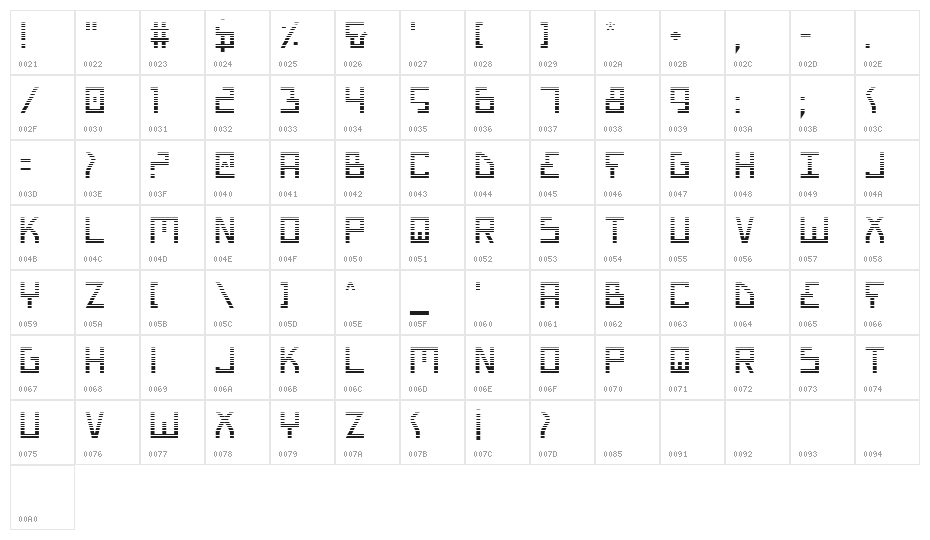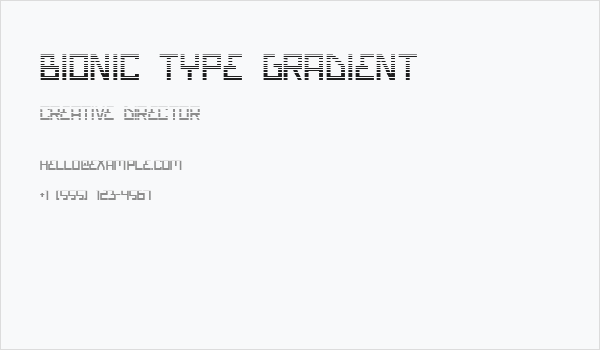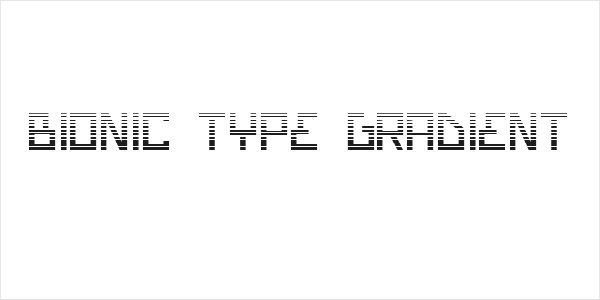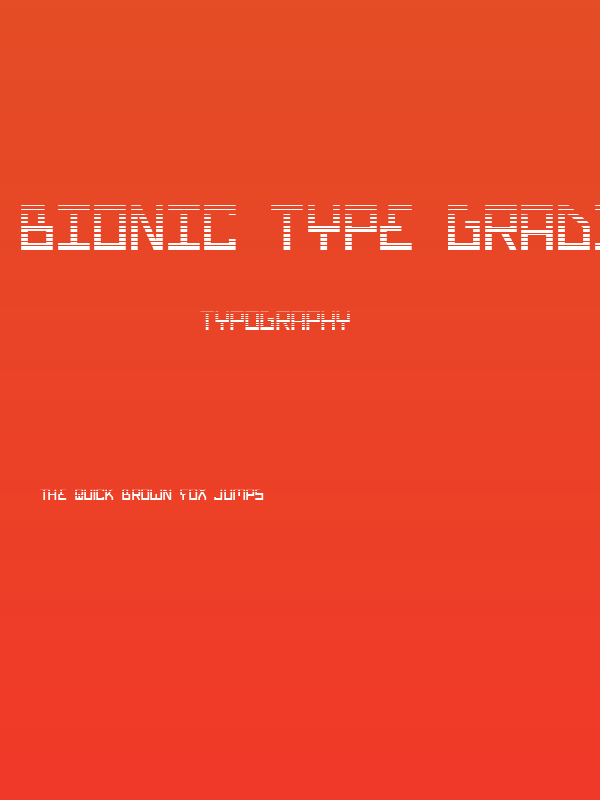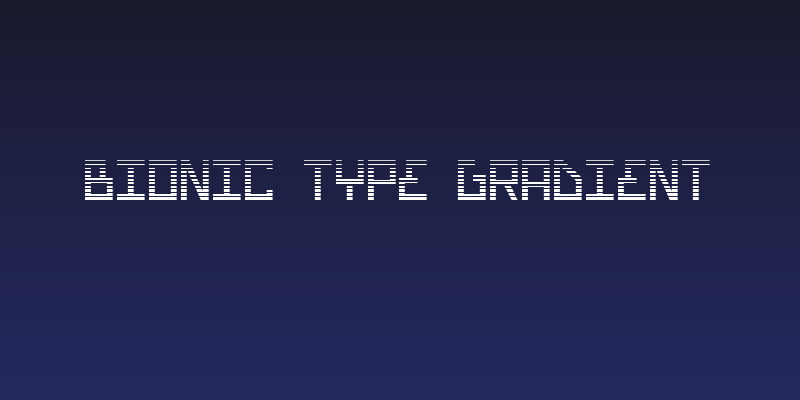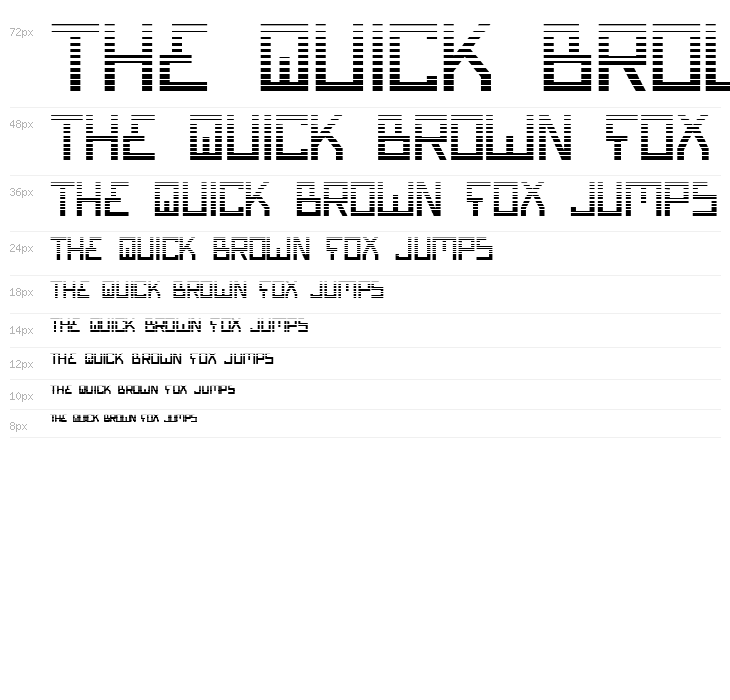
Bionic Type Gradient Font
Bionic Type Gradient Description
This font features a futuristic and digital aesthetic, characterized by its segmented, block-like structure. Each character is composed of horizontal lines that create a gradient effect, giving it a dynamic and modern look. The design is reminiscent of digital displays or barcodes, making it ideal for tech-oriented themes. The uppercase and lowercase letters maintain a consistent style, with numbers and special characters following the same segmented pattern. This font's unique appearance makes it stand out, perfect for projects that require a bold and innovative visual impact.
| Proposed Projects | Ideal for tech-themed designs, digital interfaces, sci-fi posters, and innovative branding projects. |